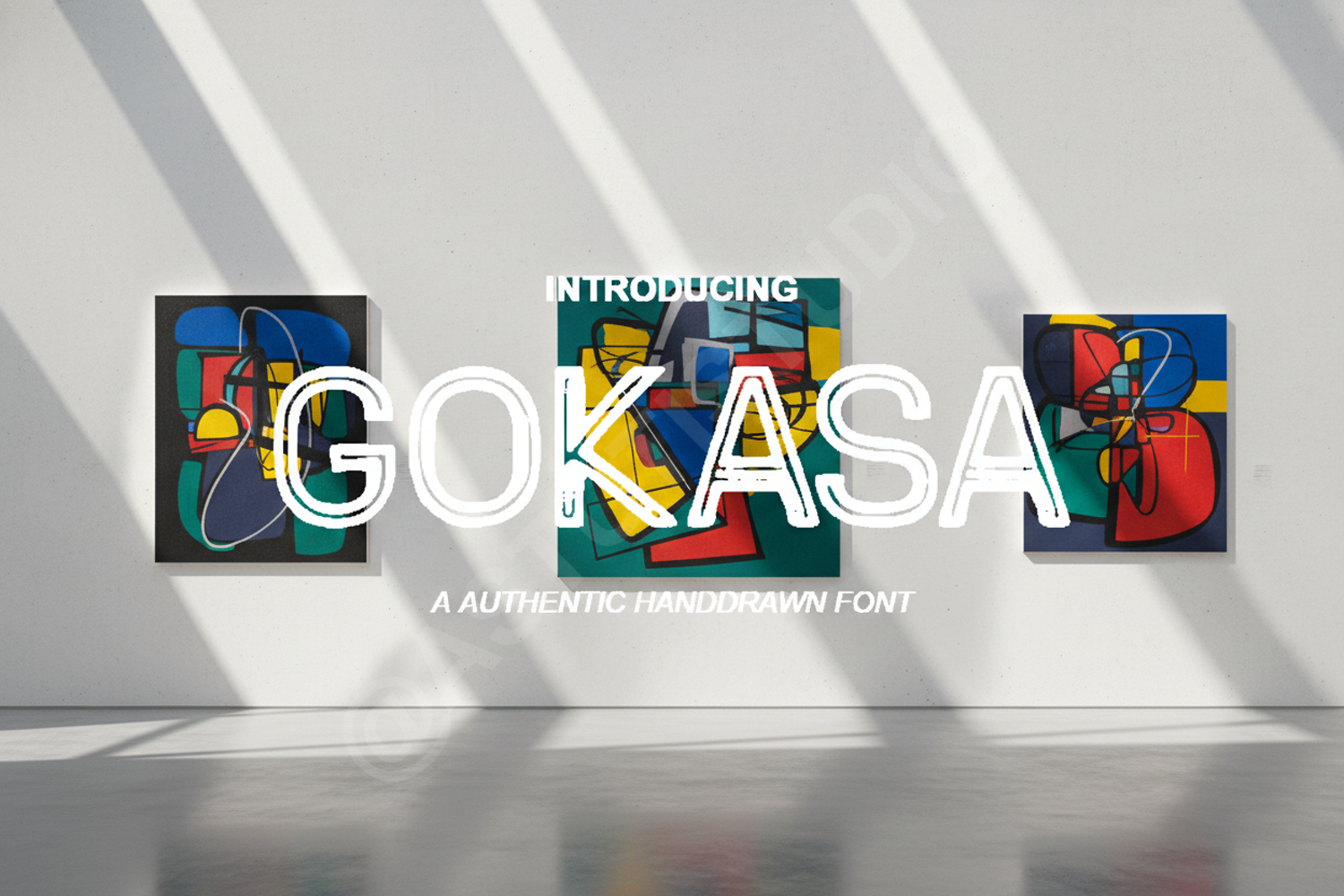
Gokasa - Modern Geometric Display Font
Gokasa
Elevate your design projects with Gokasa, a premium geometric display font that strikes the perfect balance between modern minimalism and bold sophistication. Crafted with precision, Gokasa features clean lines and balanced proportions, making it a versatile powerhouse for any creative toolkit.
- Branding and Visual Identity: Create memorable logos and brand marks that stand out.
- Editorial Design: Perfect for high-end magazine headers and layout accents.
- Social Media: Capture attention with bold, clean typography for Instagram or Pinterest.
- Packaging: Add a touch of premium quality to labels and product boxes.
- Web Design: Ensure your site looks modern and professional with optimized web font files.